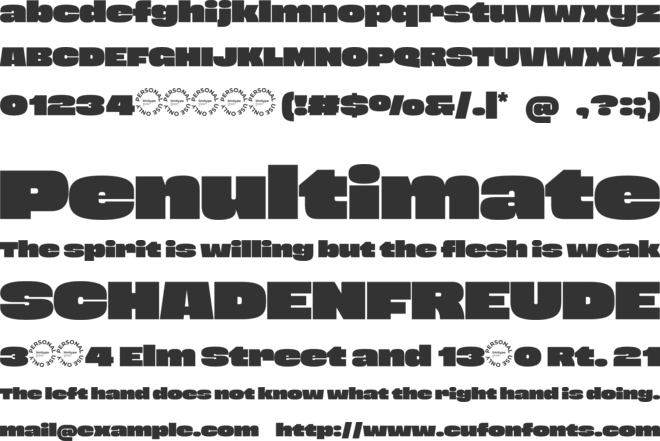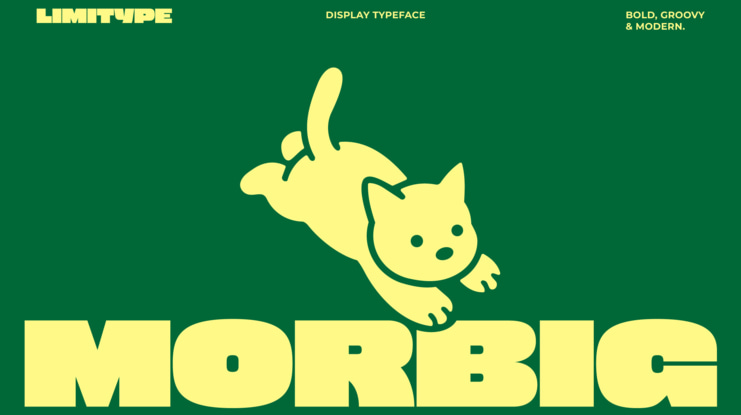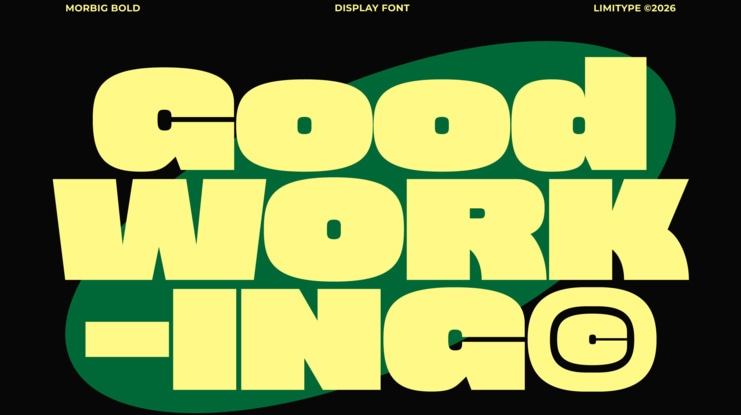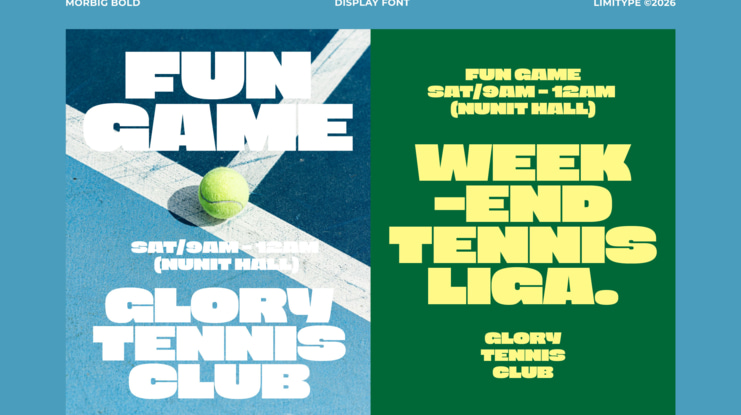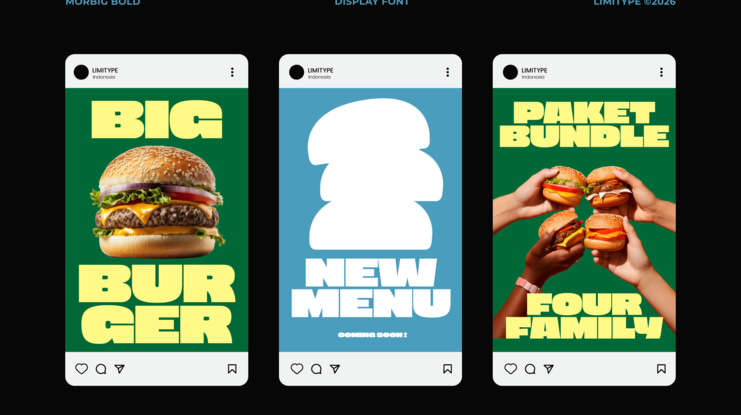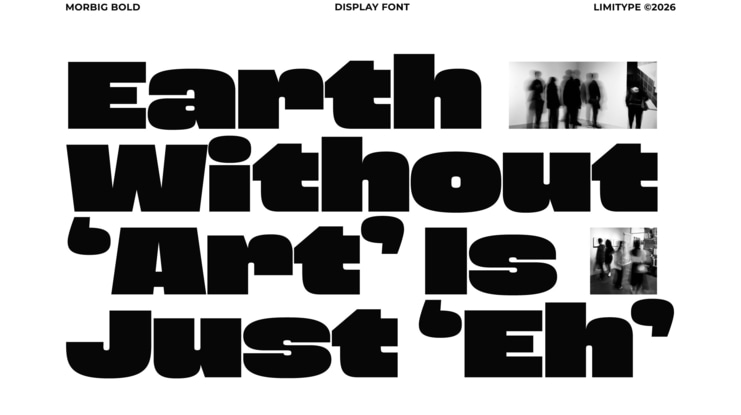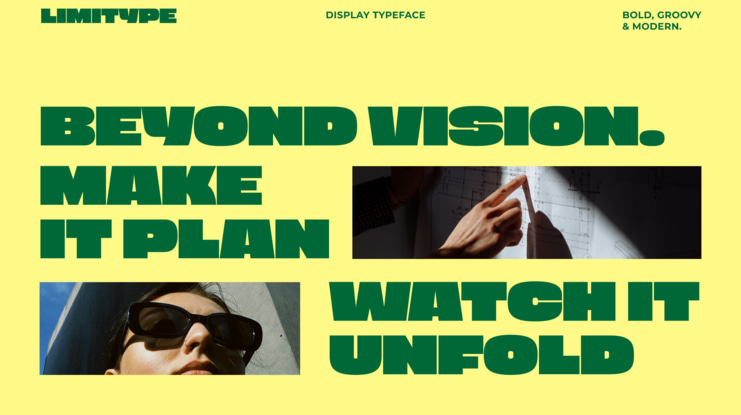
Morbig Bold Display Font
Morbig is a bold display font featuring chunky geometric letterforms, heavy forms, and distinctive cut in details. Its fat shapes and unusual letter construction create a strong typographic character with a retro feel. Morbig is suitable for posters, headlines, logos, branding, packaging, editorial designs, and advertising.